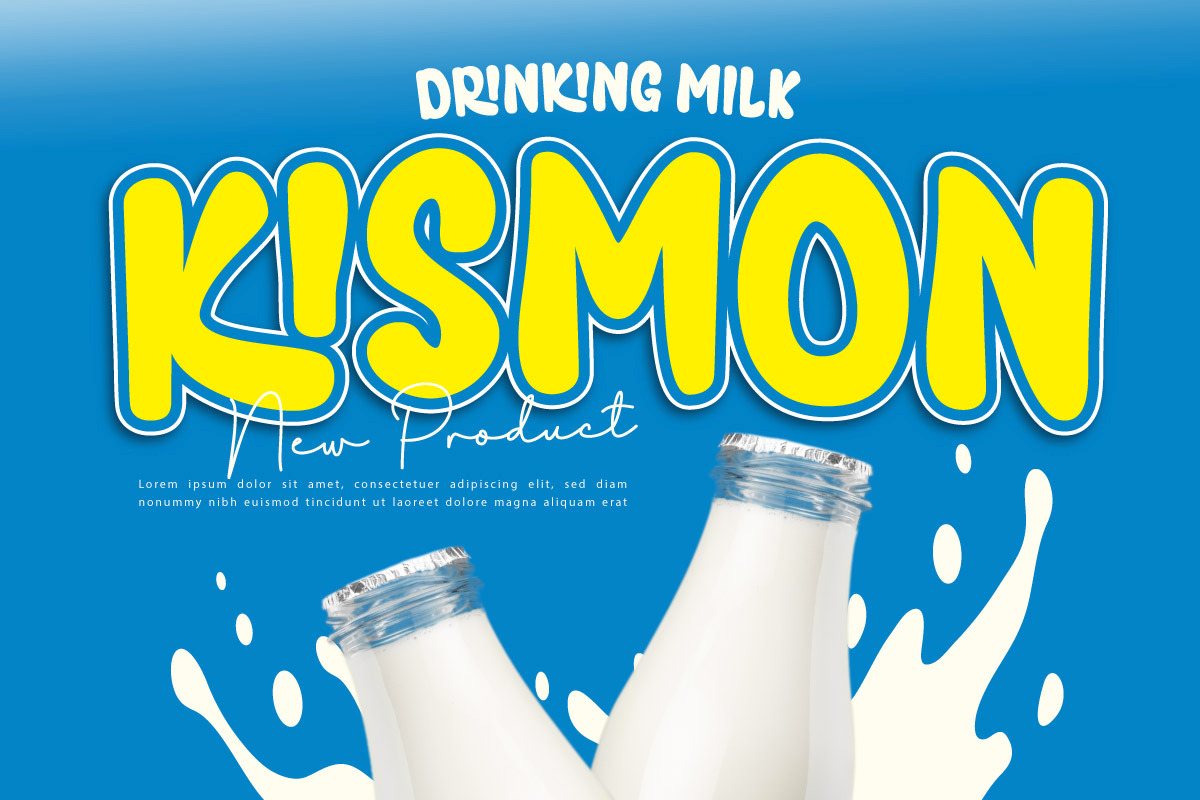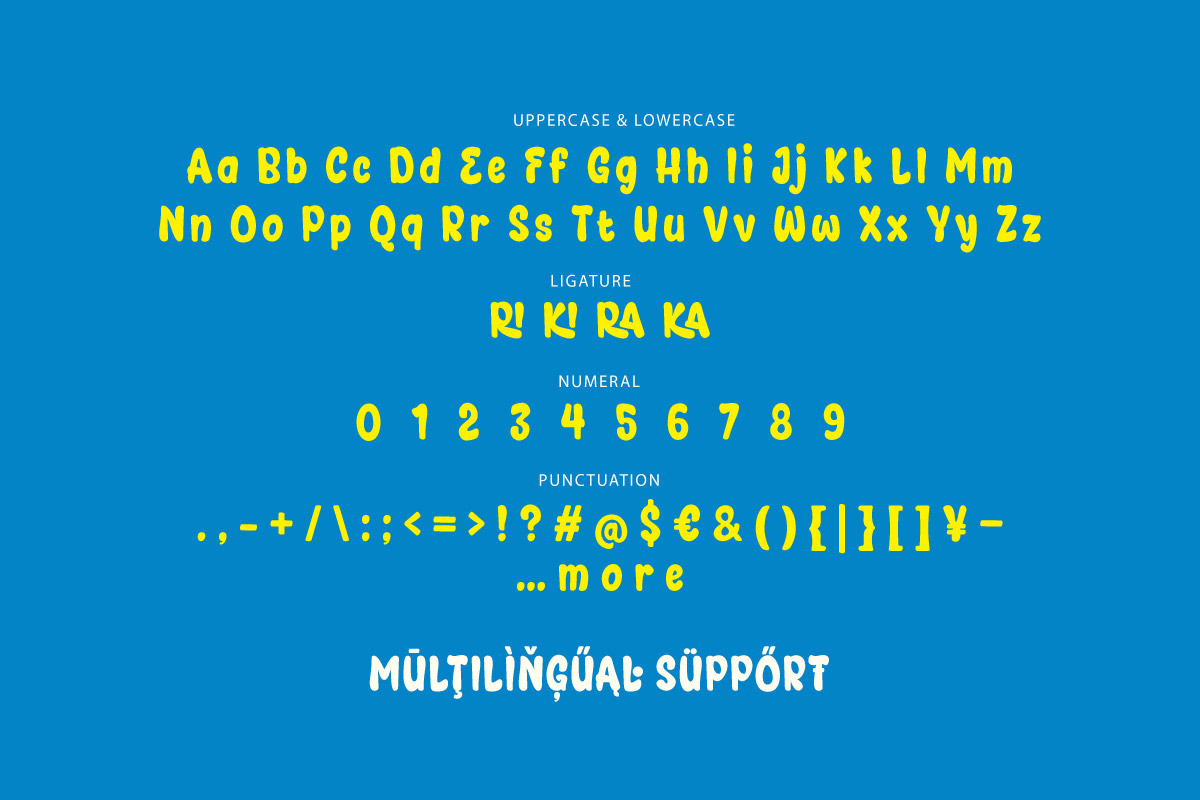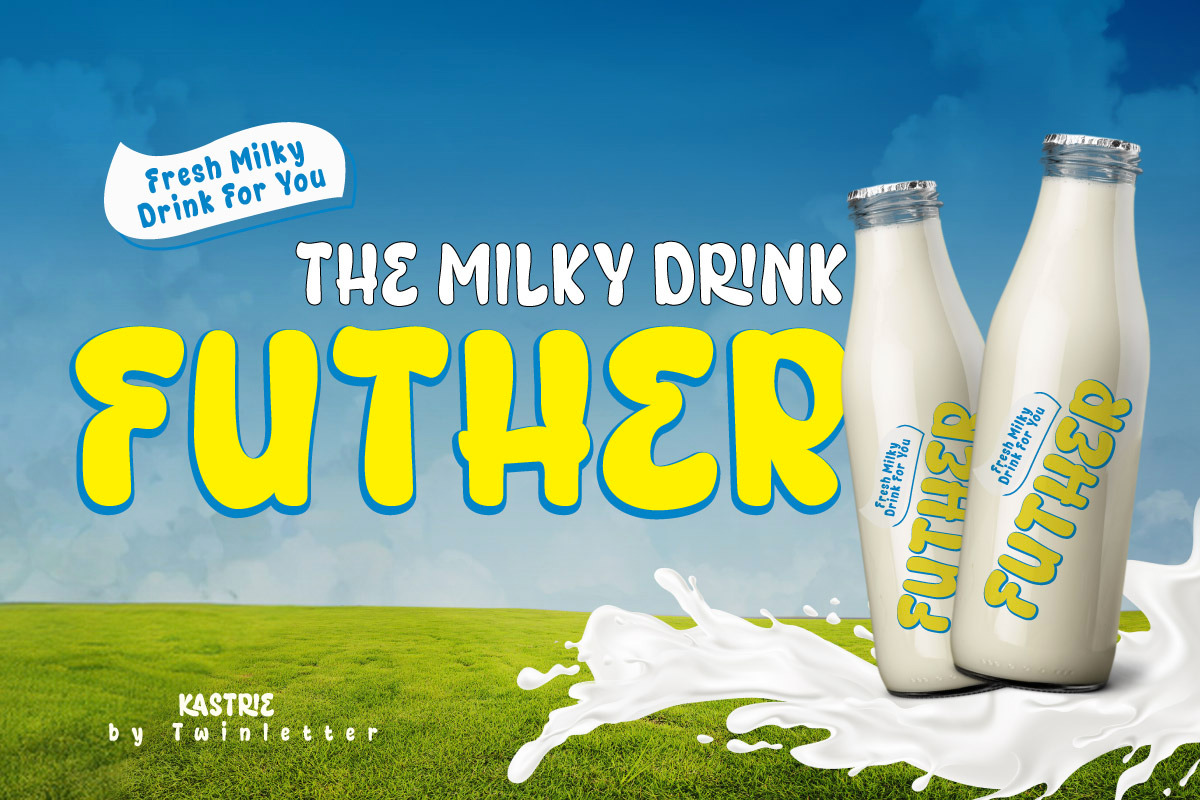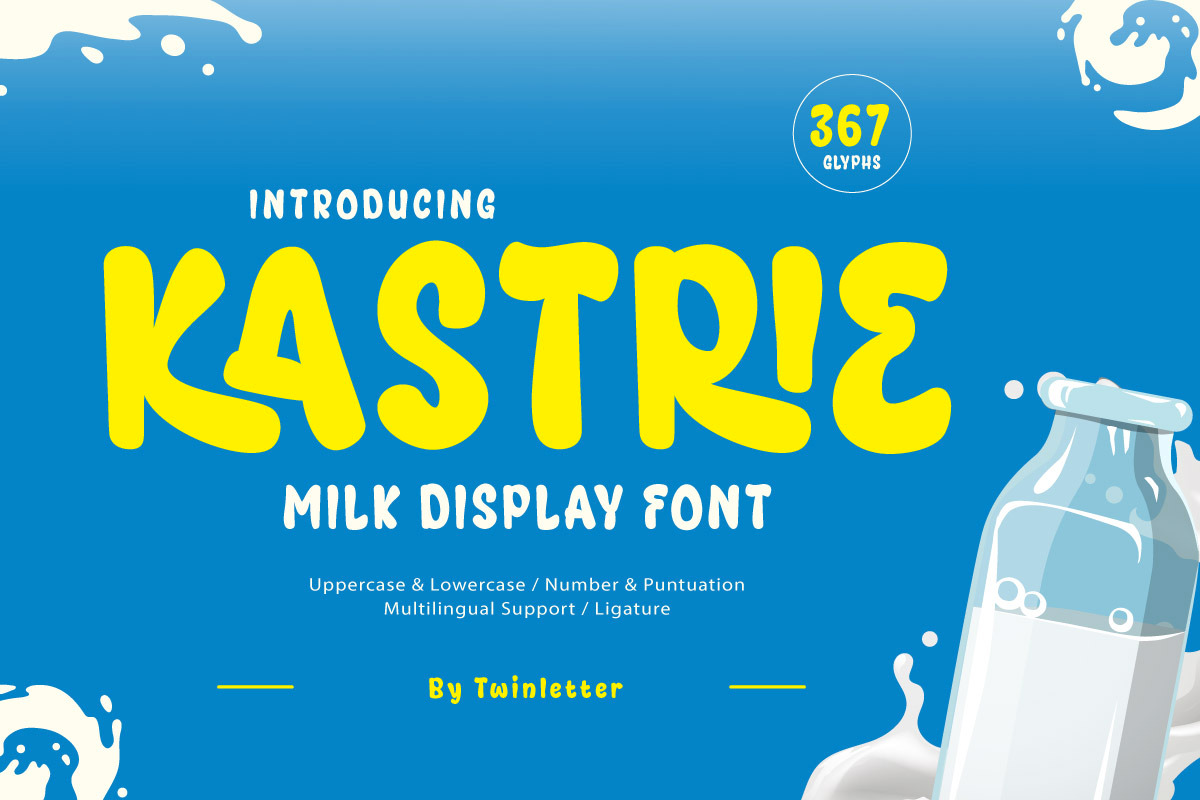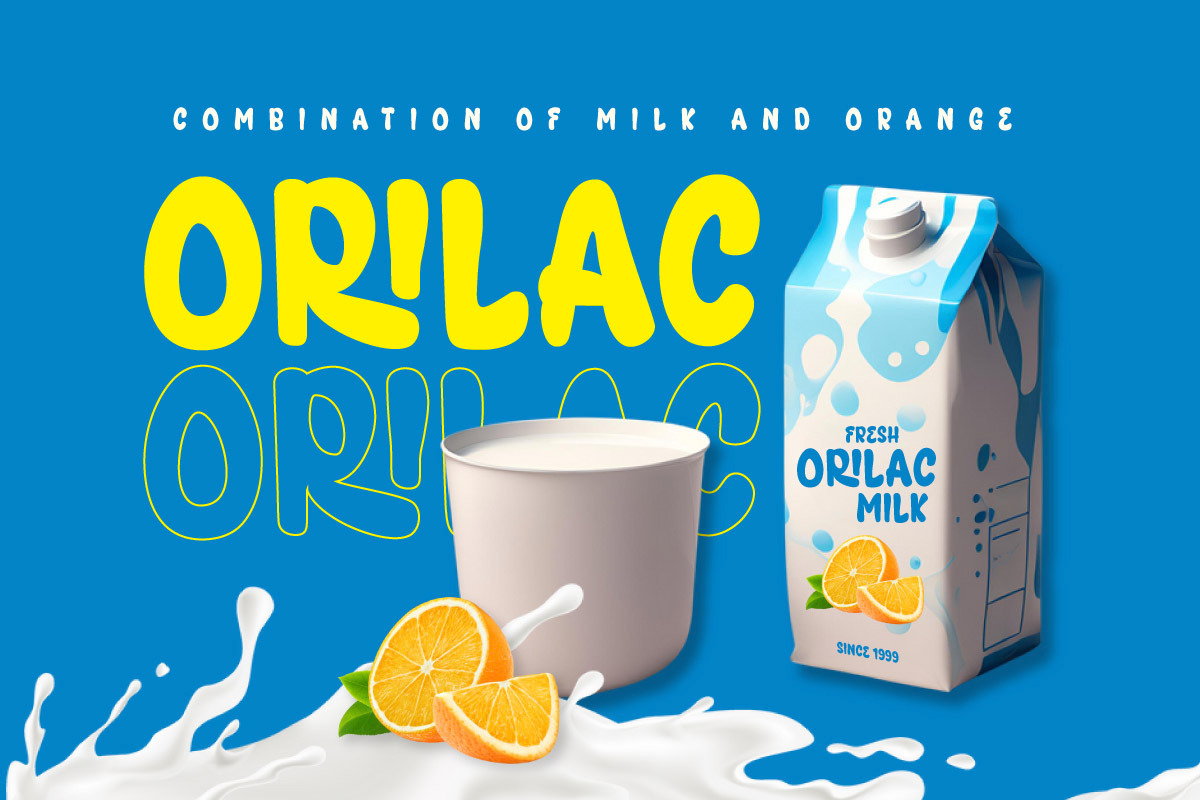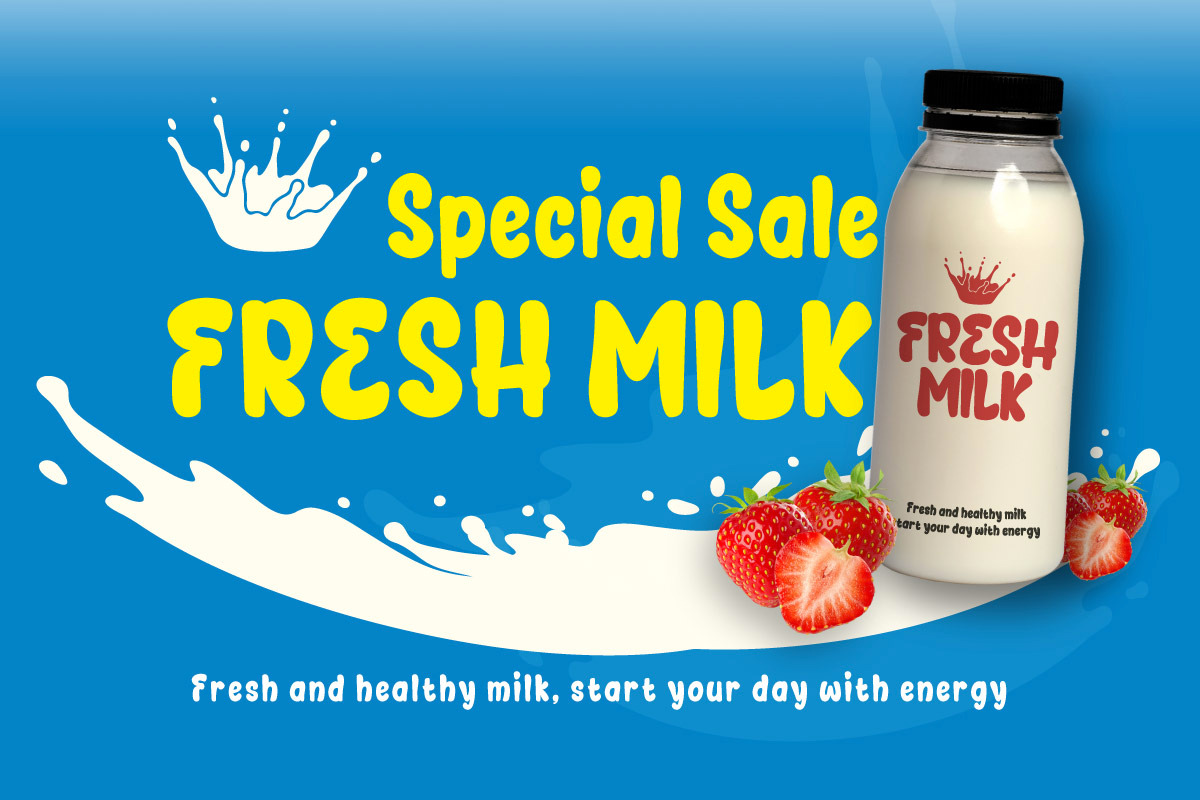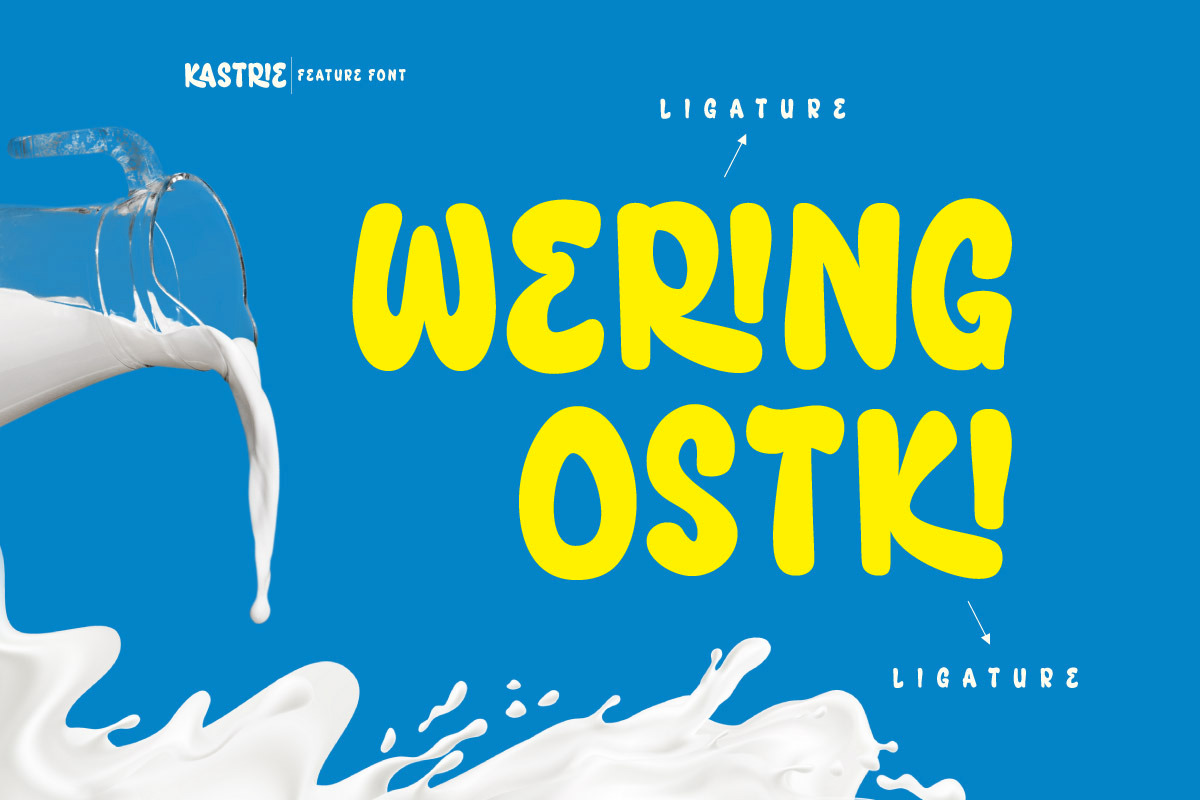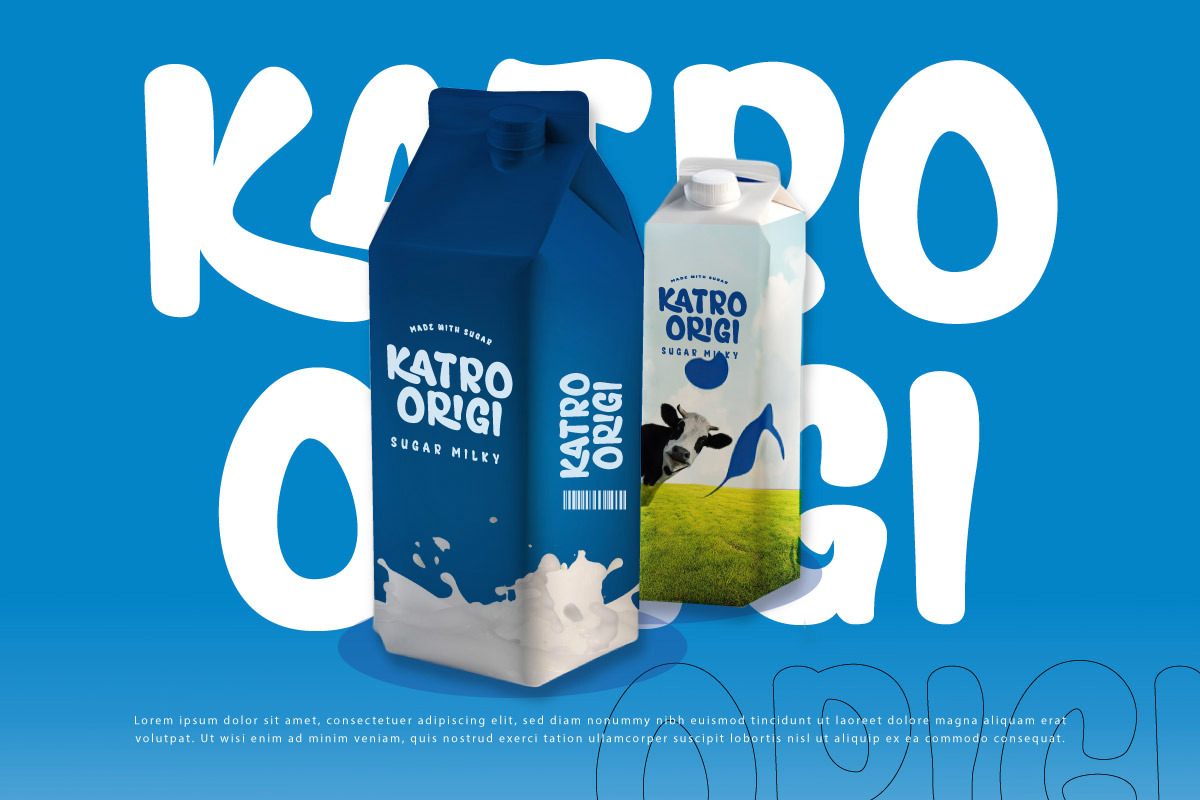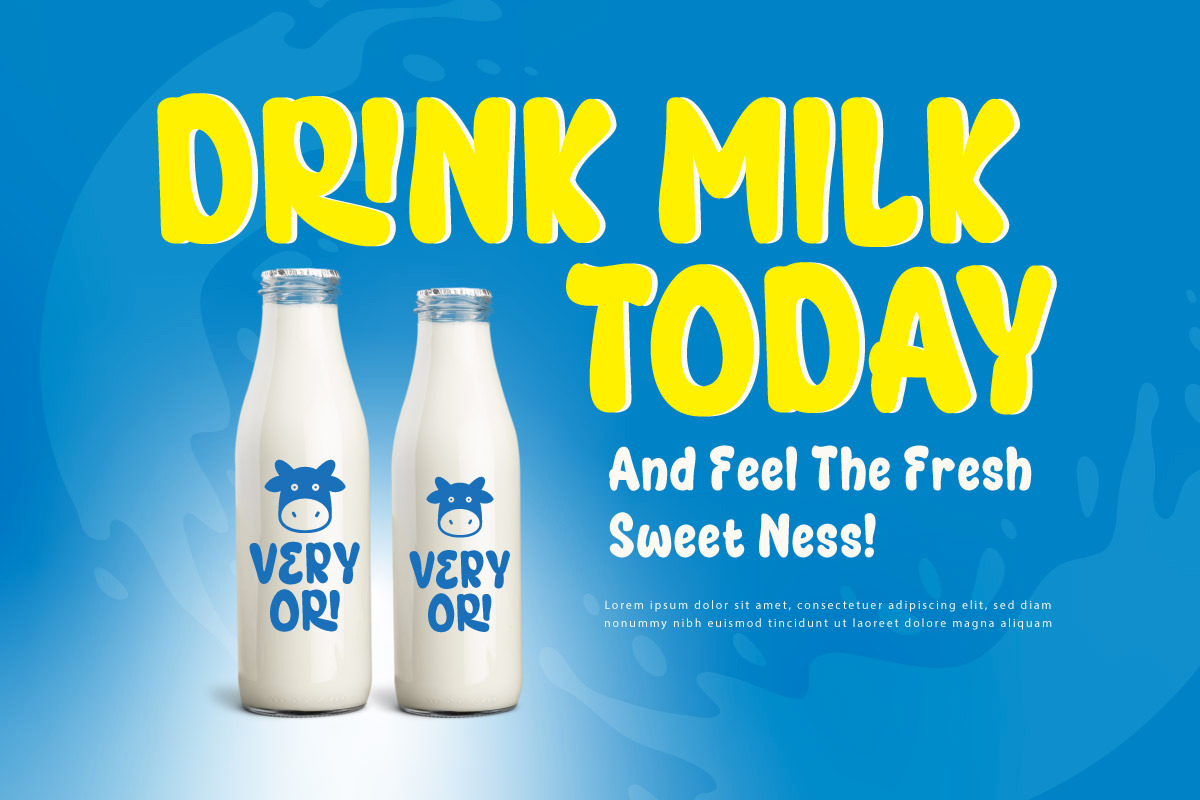
Kastrie - Milk Display Font
Kastrie is a display font created specifically for branding and promotion of milk beverage products and their derivatives such as yogurt, cheese, and ice cream. However, this font is also flexible enough to be used for branding other beverage products that want to convey a fresh, fun, and adorable impression.
This font has a strong, fat, and curved character, creating a cute and cheerful impression that is suitable for promoting milk-based products and other soft drinks. Available in uppercase, lowercase, numbers, punctuation, and supports multilingual and ligatures.
Kastrie is very flexible for various design applications such as packaging labels, advertising, promotional media, and store branding. The thickness of the letters still ensures good readability even when used as a large title or headline. The visual combination of bright colors, a milk drop illustration, and a blue background creates an inviting impression.
- Fonts include Multilingual support